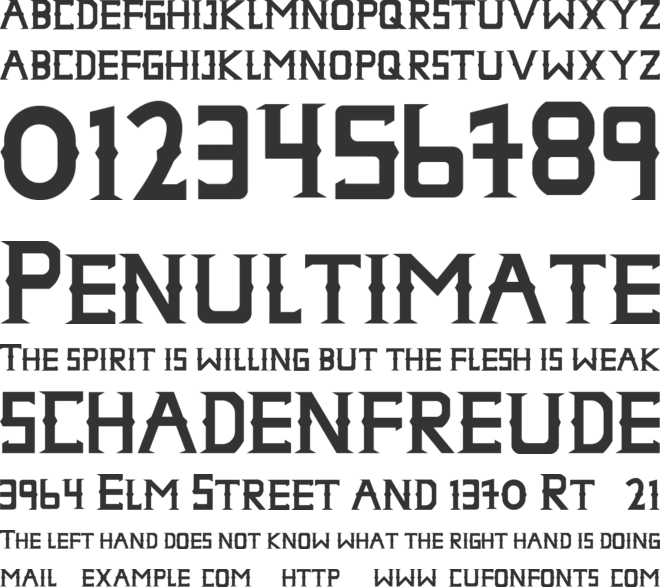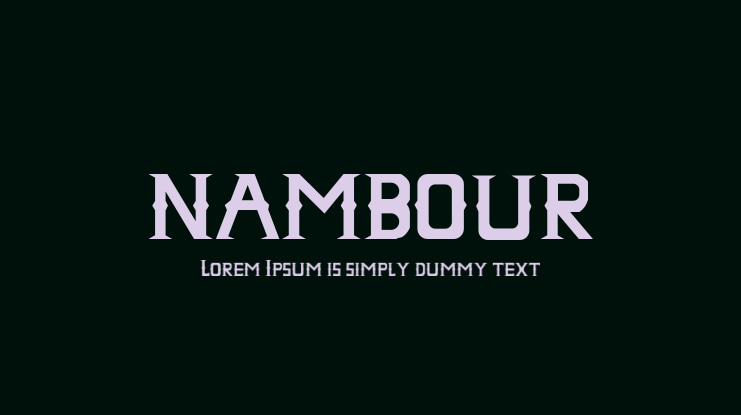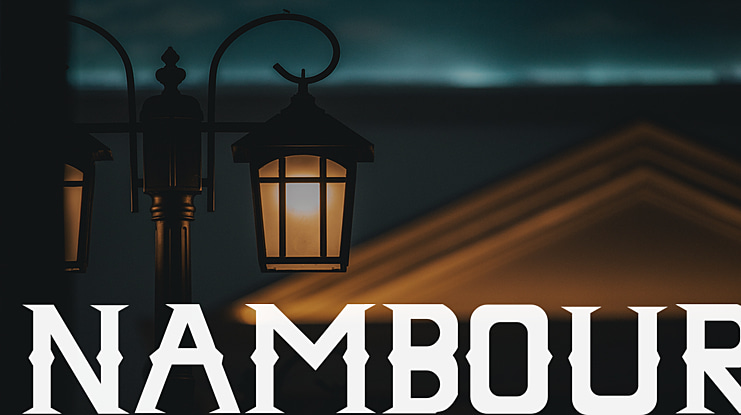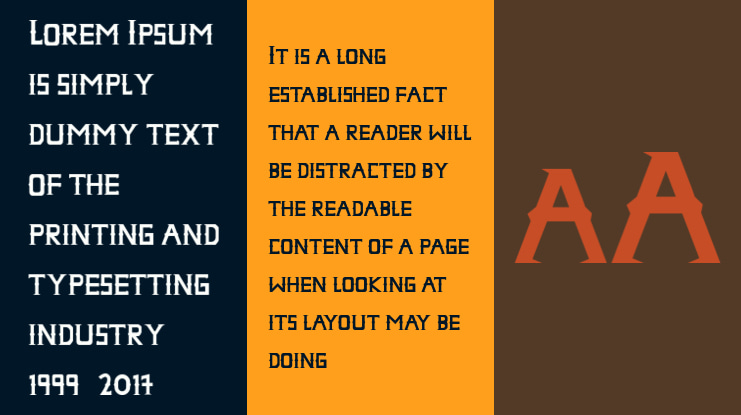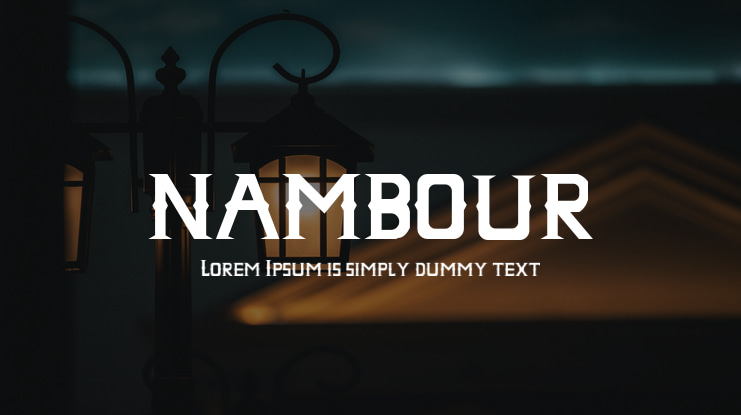
NAMBOUR Font
NAMBOUR vintage font is a cool and elegant lettering font for logo designs, branding, t-shirts, and other designs. With this vintage style you can make vintage logos easily.